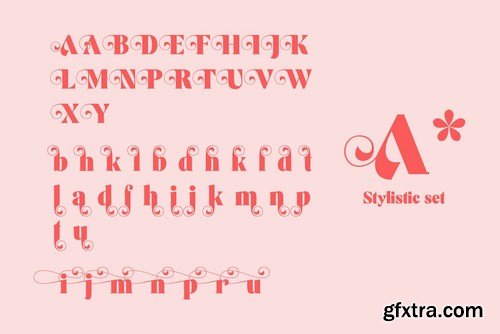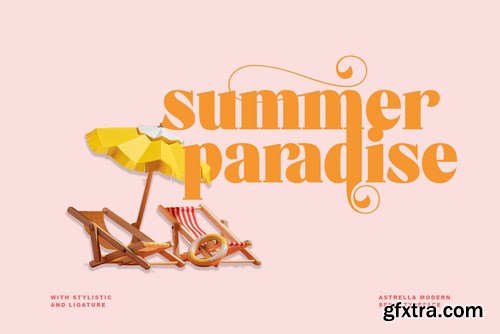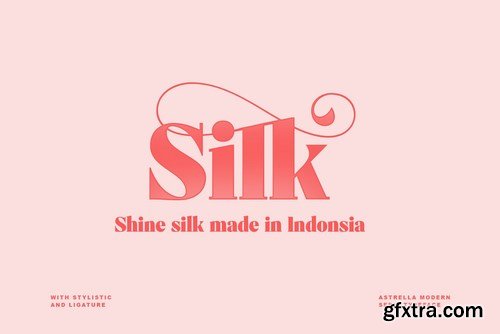
Hello, this time we want to introduce a new product. namely "Astrella Typeface", a Serif display font that has a classic, feminine and elegant style.
Mechta font is perfect for many different projects such as logos & branding, invitation, stationery, wedding designs, social media posts, advertisements, printed quotes, product packaging, product designs, label, photography, watermark, special events or anything.